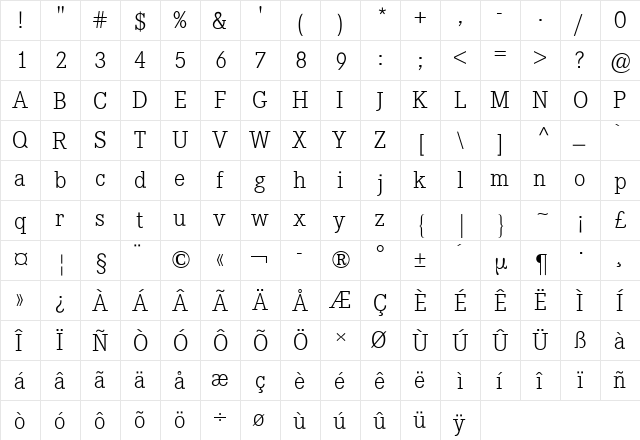
Corporate E BQ Light
Design Context for Corporate E BQ Typeface
Corporate E BQ offers clean, dependable letterforms without strong stylistic allegiance, making it a practical choice for designers who need flexibility. The delicate stroke weight brings airiness and refinement to layouts.
Pro Tip: Use Corporate E BQ in both headline and body roles to test its range before committing to a single application.